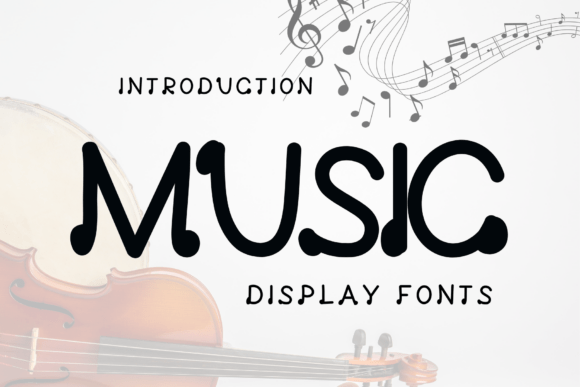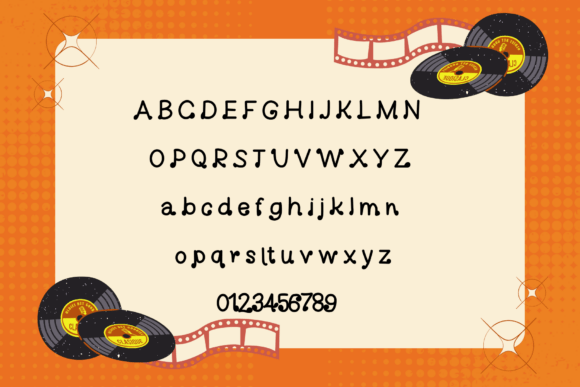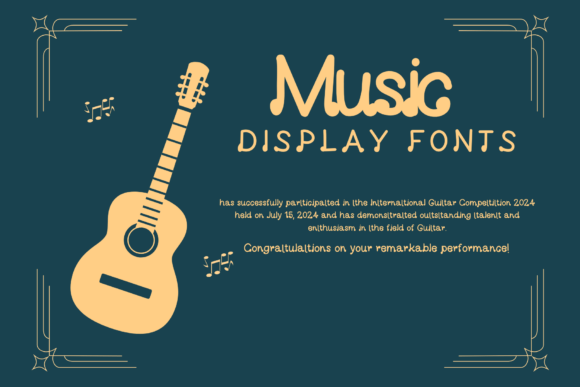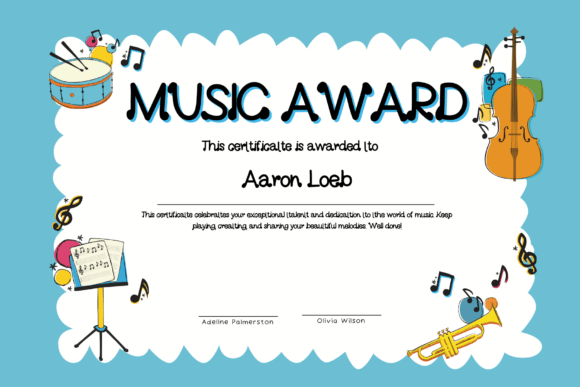
Music Font
About the Music Font
Explore the possibilities with Music Font, a font that offers both beauty and functionality. Music is a handwritten font. You can use it for taking notes, writing a diary, or making greeting cards. However, you can still use it for other designs, such as banners, content, mugs, cards, shirts, stationery, social media posts, and more!
Music Font’s casual, handwritten style shines in projects needing a personal touch. Ideal applications include greeting cards, social media graphics, short quotes on posters, and branding for artisan products or small businesses emphasizing handcrafted quality. It’s less suitable for large blocks of text, websites, or UI elements where readability is paramount.
Pairing Music Font with a clean sans-serif like Open Sans for body copy creates a strong contrast, balancing the informal script with modern clarity. Alternatively, a classic serif such as Garamond adds a touch of sophistication, making it suitable for high-end packaging or branding projects. For a more playful feel, consider pairing it with a geometric sans-serif like Futura.
The overall personality of Music Font is friendly and approachable, conveying warmth and authenticity. Its slightly informal nature makes it unsuitable for projects requiring a strictly formal or corporate aesthetic.